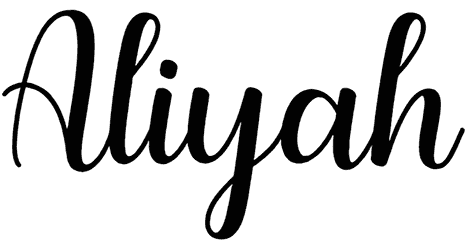
Aliyah Font
Give off a warm and playful aura in your presentation through this script font and bring a happy and fresh feeling to your audience. Aliyah font comes to use in your creative writing designs, whether social media posts, quotes, greeting cards, posters, or even apparel, to give them a sweet, natural effect.